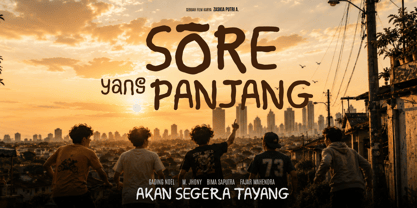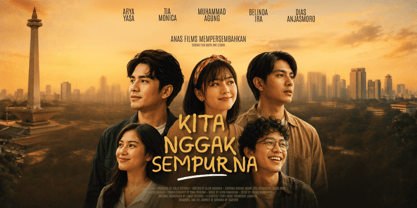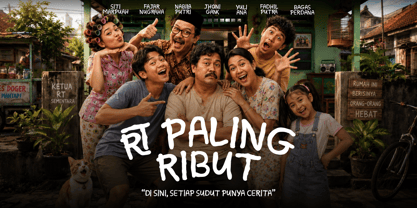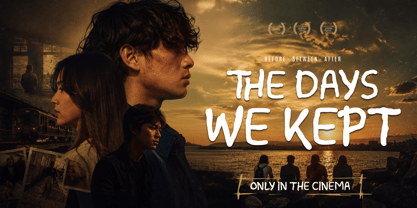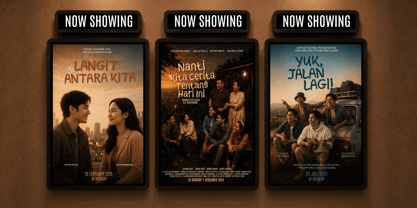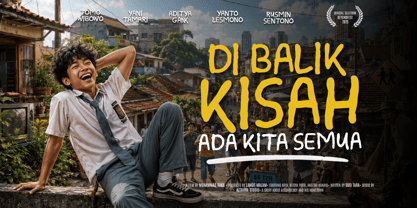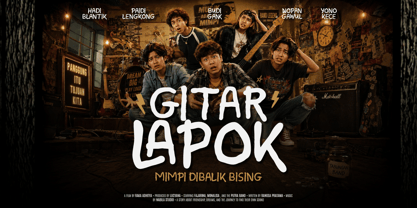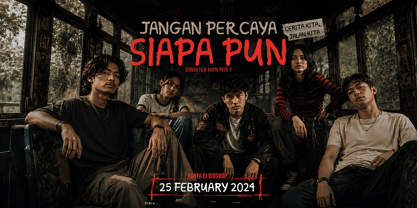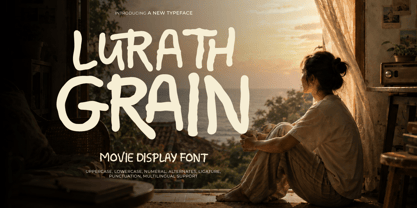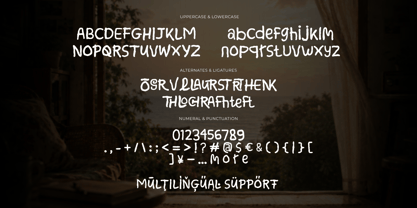
Lurath Grain
Lurath Grain is a bold hand-drawn typeface created for movie titles, urban posters, and expressive visual storytelling. Its rough, organic strokes bring a raw cinematic character that feels youthful, rebellious, and authentic, making it perfect for projects that need a strong visual identity with an underground edge.
Designed to stand out in large headlines, Lurath Grain works beautifully for film posters, movie titles, trailer graphics, festival promotions, streetwear campaigns, and urban branding. Its imperfect handmade appearance adds personality while maintaining strong readability, making every headline feel dynamic and memorable.
Perfect for teen action films, urban culture projects, extreme sports documentaries, underground cinema, street campaigns, music visuals, and creative branding, Lurath Grain is made for designers who want typography that feels energetic, fearless, and cinematic. Use it for posters, title cards, credits, social media campaigns, merchandise, and promotional artwork.
- All glyphs and Feature
- Multilingual Support: Fully supports 85+ languages, including: